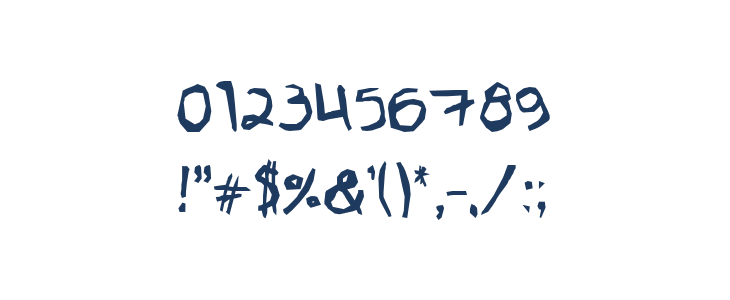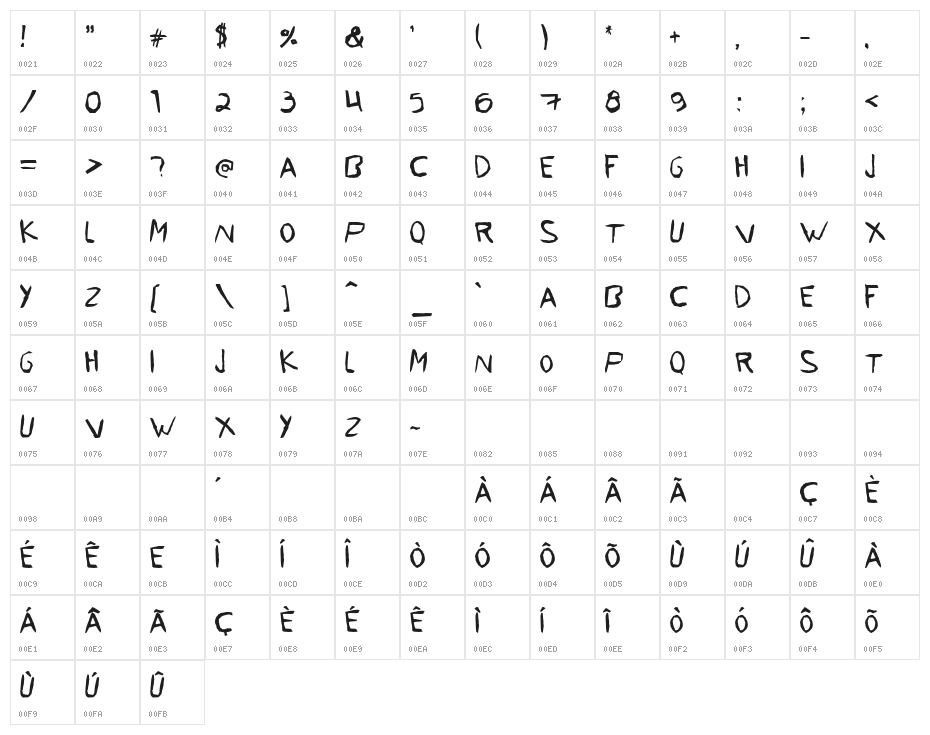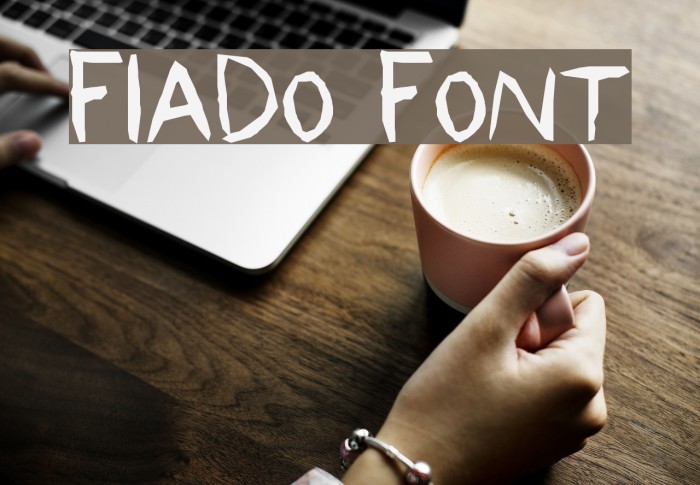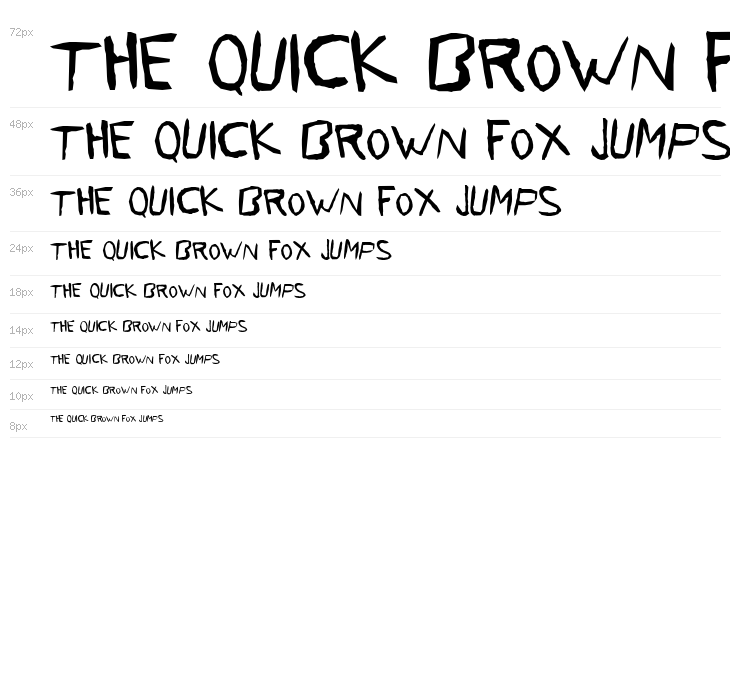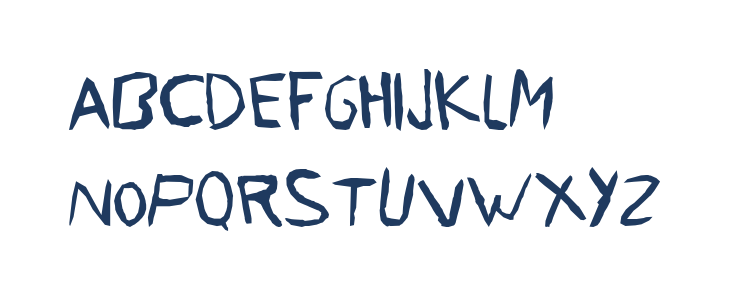
Fiado Font
Fiado Description
This font features a bold, hand-drawn style with irregular, jagged edges that give it a raw and expressive appearance. The uppercase and lowercase letters maintain a consistent height, while the numbers and special characters follow the same rugged aesthetic. The strokes are uneven, adding to the font's dynamic and energetic feel. This style is reminiscent of graffiti or street art, making it stand out with its unique and artistic flair. The font's overall appearance is both bold and playful, capturing attention with its unconventional design.
| Use Case | Logos, Posters, Headlines |
| Proposed Projects | Ideal for street art designs, edgy posters, album covers, or any project needing a bold, artistic touch. |